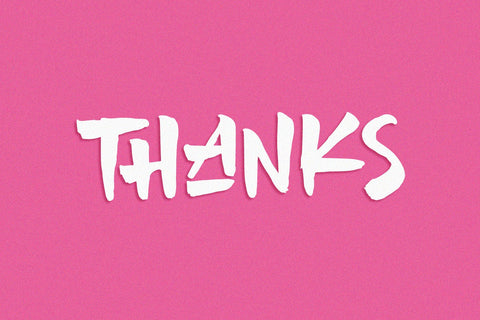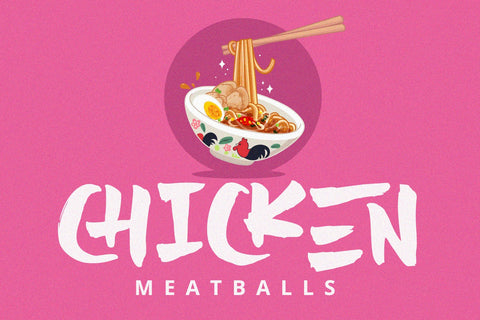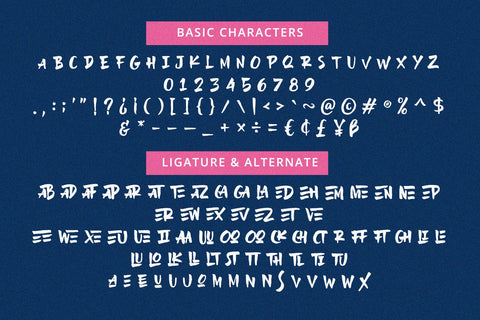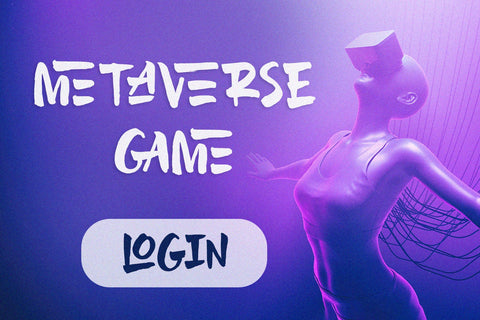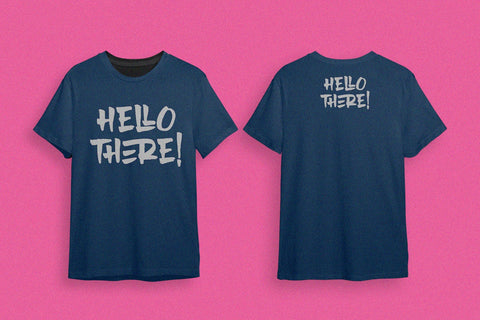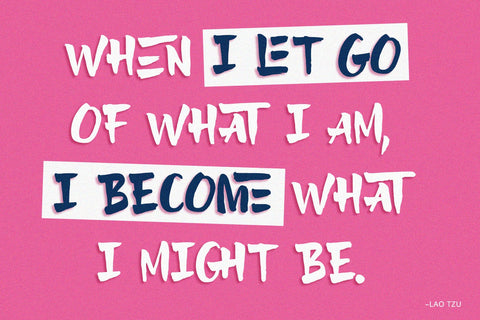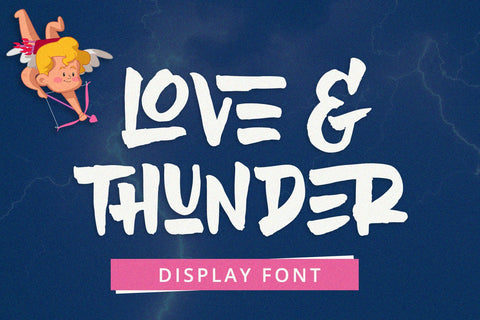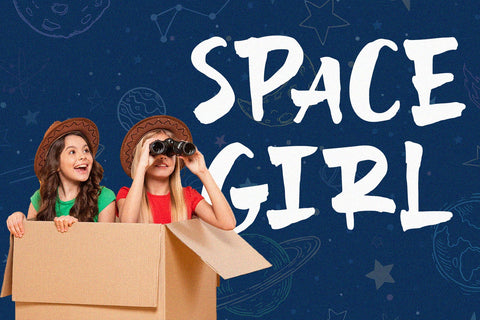
Love & Thunder - Display Font
Love & Thunder is a display font with fun and futuristic feels. It will be perfectly used for Branding, Logo Design, Lettering, Logotype, Clothing, Poster, magazine, packaging, posters, shopping bags, t-shirts, book covers, photography, special events and other design project.